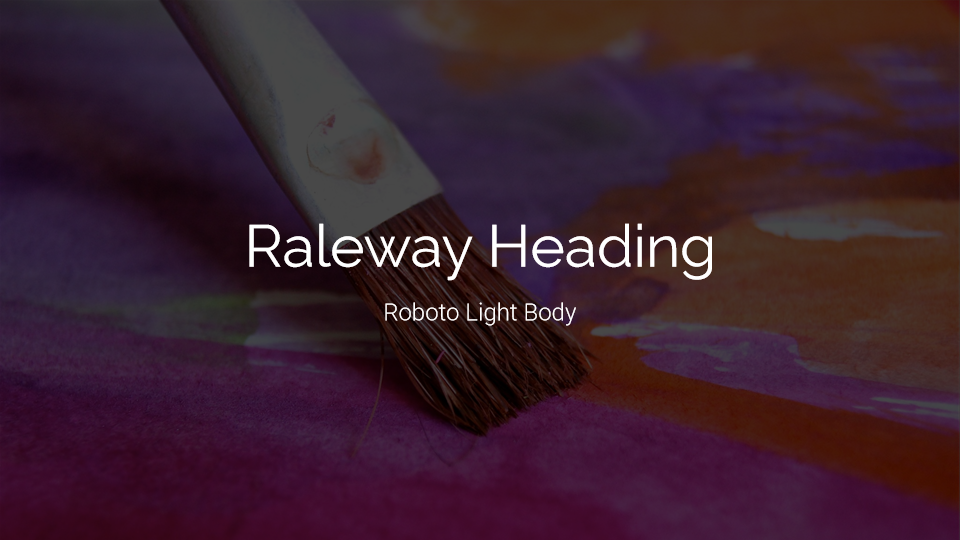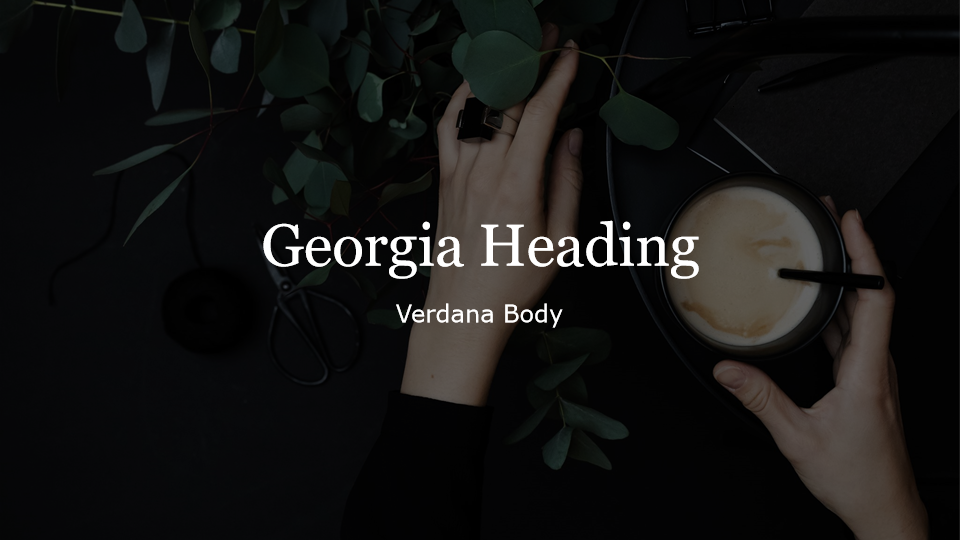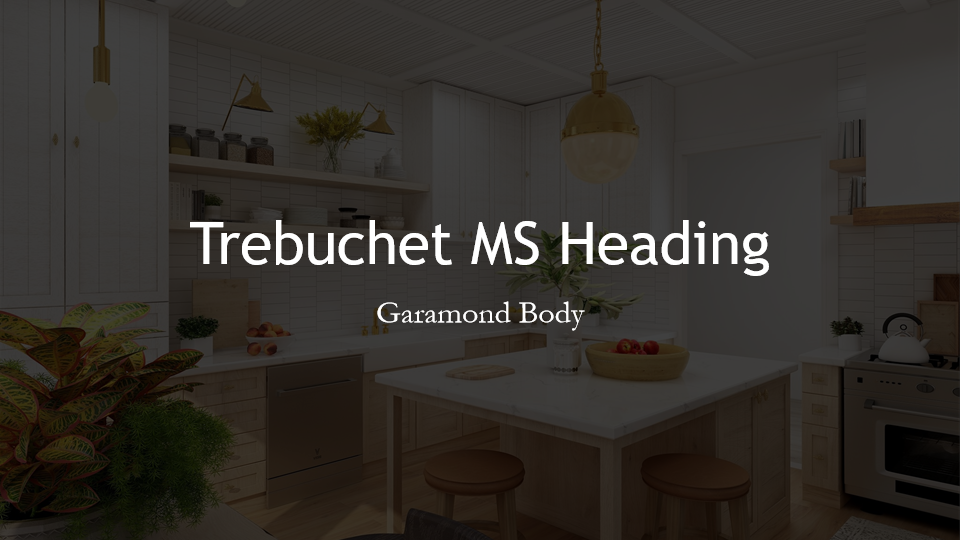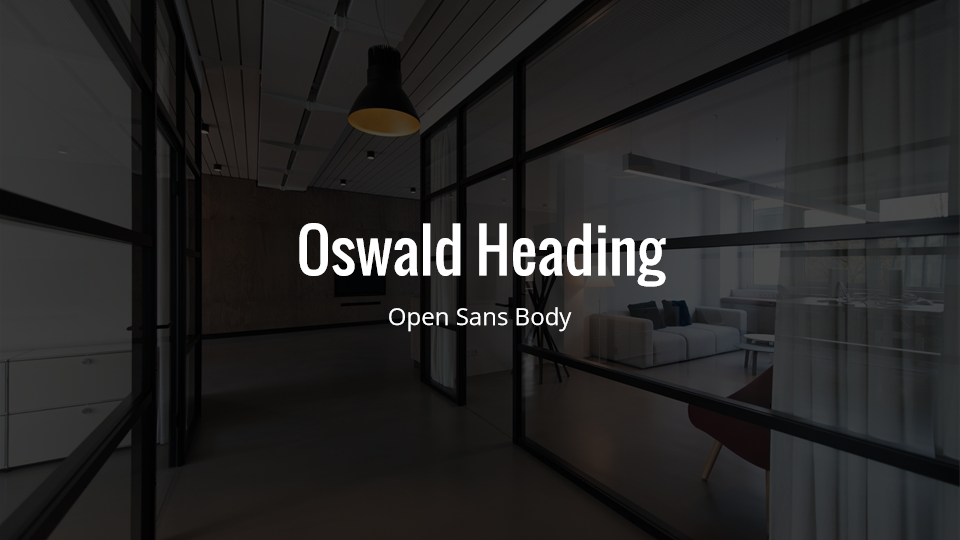
5 Inspiring Font Pairings for Your Next E-Learning Project
Look at any e-learning project and one of the first things you’ll notice are the fonts. Theme fonts set the stage. They establish a project’s tone—and they make a big difference in helping learners read content more easily.
But, with so many options to choose from, how can you possibly pick? Thankfully, you don’t have to search online for the perfect heading and body fonts. You can simply mix and match the built-in Storyline 360 fonts and system typefaces to make your content look polished and legible.
Curious to see which fonts work well together? Take a look at these five pairings you can start using right away!
1. Montserrat Medium & Montserrat
Want to combine similar fonts without falling into the “it’s boring” trap? Try pairing Montserrat Medium with Montserrat. These two fonts have the same base—just with different line thicknesses. The result is an engaging, easy-on-the-eye contrast. Together, these fonts create a sense of strength and tranquility. And because of their versatility and geometric lettering, the fonts are generally safe for any project.
2. Georgia & Verdana
Pairing different fonts can sometimes feel daunting. How do you know which ones to mix and match? What if you end up combining fonts that conflict instead of contrast? Choose Georgia and Verdana and you can put those worries aside, as these two fonts were designed to work together. The elegant simplicity of Georgia combined with the clear and legible Verdana font makes this classic combo a nice choice for your projects.
3. Trebuchet MS & Garamond
Need a fresh look? Sometimes combining the old with the new can give a sense of unique familiarity. To capture that balance, try Trebuchet MS and Garamond. The modern Trebuchet MS paired with Garamond—one of the oldest fonts—emits a friendly and sophisticated tone, giving you the best of both worlds.
4. Oswald & Open Sans
The best font pairings have visual contrast—but that contrast can't look disjointed. After all, we still need to maintain cohesiveness. Use Oswald and Open Sans to create that ideal match. Oswald’s slightly elongated characteristics combine beautifully with many fonts. Match it with the neutral and friendly Open Sans and you’ll have a distinct and professional pairing that’s instantly pleasing to the eye.
5. Raleway & Roboto Light
Need to add some personality to your projects? Look no further than the dynamic Raleway and Roboto Light duo. This sleek and modern font combination is the perfect mix! Raleway works great as a heading because its subtle, artistic look attracts just the right amount of attention. Roboto Light body text completes the picture because it’s versatile and easy to read.
Wrap-Up
Using any of these font combinations can help your courses look captivating, professional, and readable. And since anyone using Storyline 360 already has these fonts installed, you can easily share your file and rest assured knowing the text formatting will stay intact!